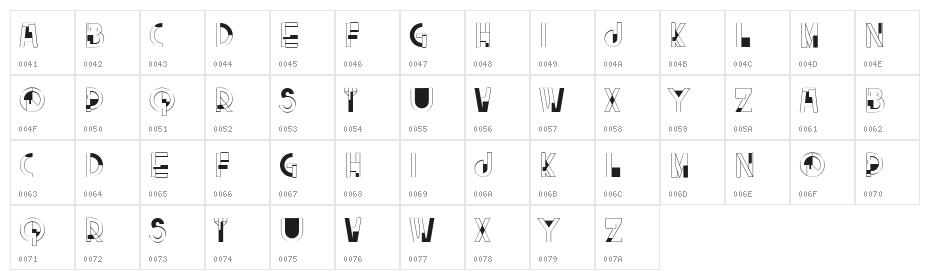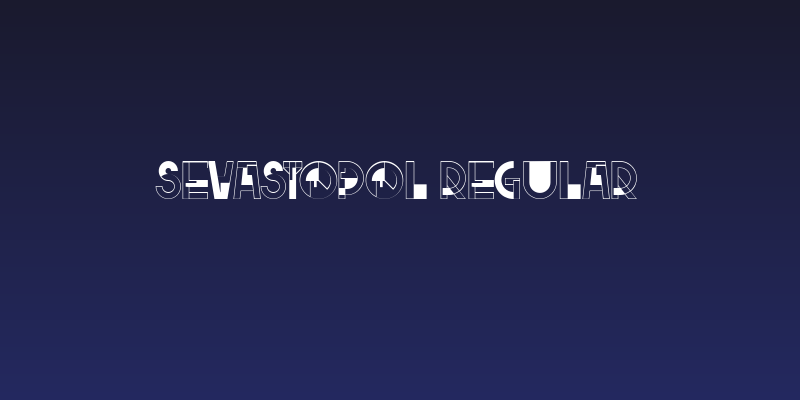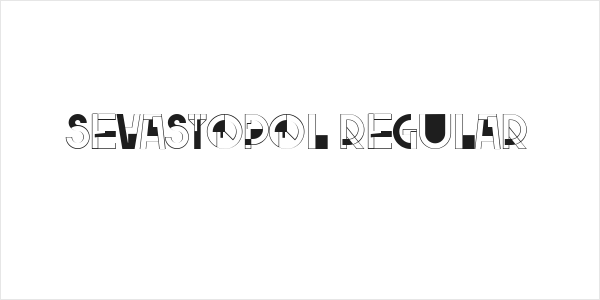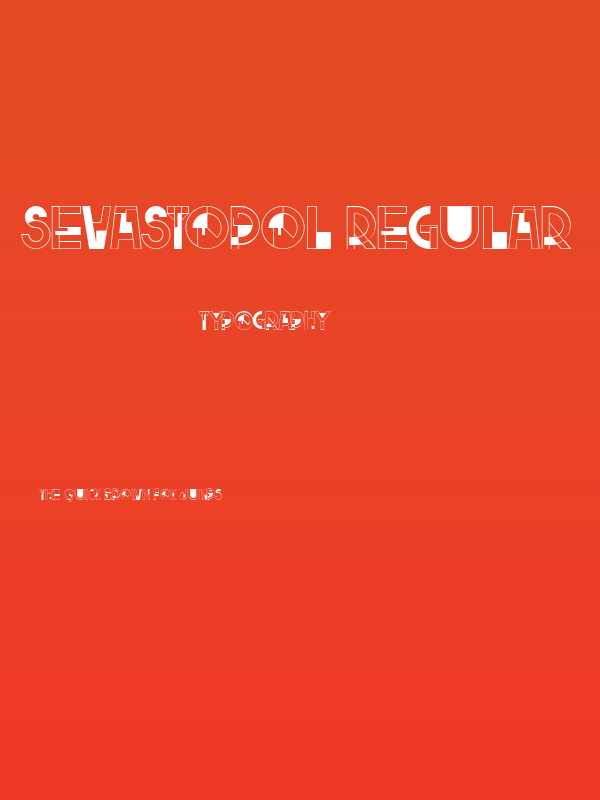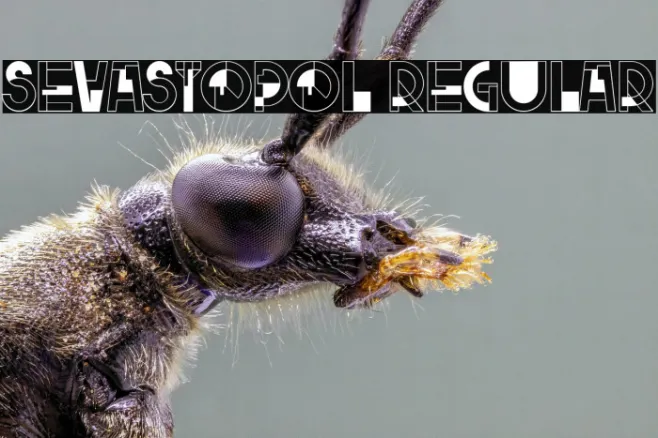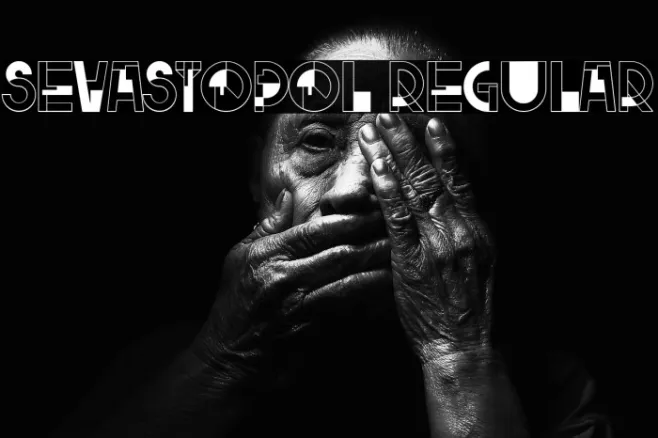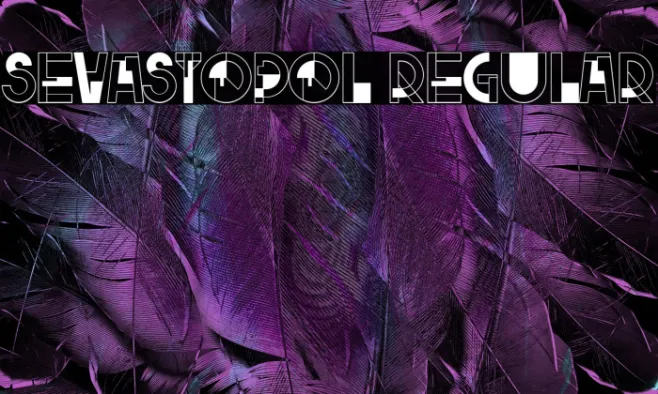
Sevastopol Regular Font
Sevastopol Regular Description
This font features a bold and geometric design with a unique interplay of solid and outlined elements. Each character is crafted with a combination of thick, solid strokes and thin, outlined sections, creating a striking contrast that draws attention. The uppercase letters are particularly distinctive, with angular and circular elements that give the font a modern and dynamic appearance. The lowercase letters maintain the same geometric style, ensuring consistency throughout the typeface. This font is ideal for projects that require a bold statement, as its eye-catching design is sure to stand out.